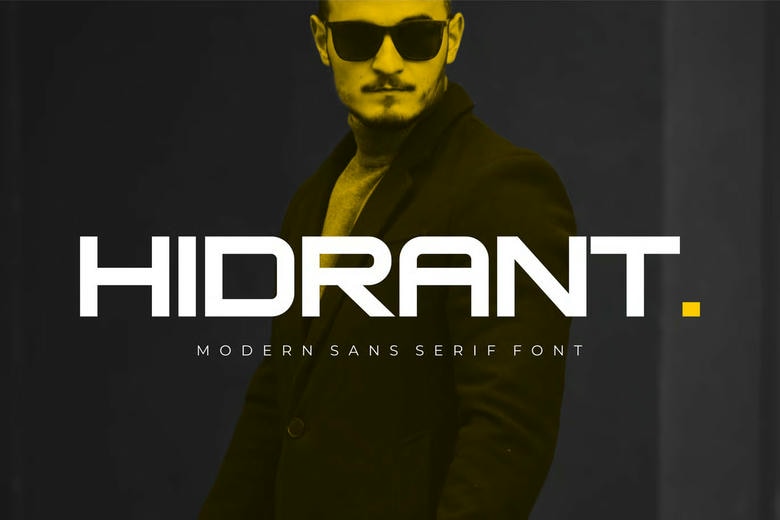
Hidrant Font
Hidrant is a contemporary geometric display typeface designed to be used in bold branding and impactful visual communication, with a mix of sharp terminals, squared proportions and controlled contrast to convey power and clarity. The energy is powerful, assertive, and urban and fits best in fashion campaigns, men lifestyle brands, streetwear brands, technology start-ups, and modern editorial layouts.
its letterforms are clean geometrical, with deep stance proportions and solid edges, not noisy in appearance. Consequently, HIDRANT excels in headlines, logos, posters, social media graphics, packages, and promotional banners, in which the message and command are the crucial factors.
HIDRANT is aimed at designers that require immediate attention and is good at branding, poster creation, editorial spreads, app Ui header, and online advertising. Its aggressive design buttresses bold messages and in the process, it is legible on paper and screen. Be it an aesthetic book of fashion, a hairdressing shop identity, a shoe promotion or an urban movement, HIDRANT has a visual voice that is assertive, contemporary and strong.